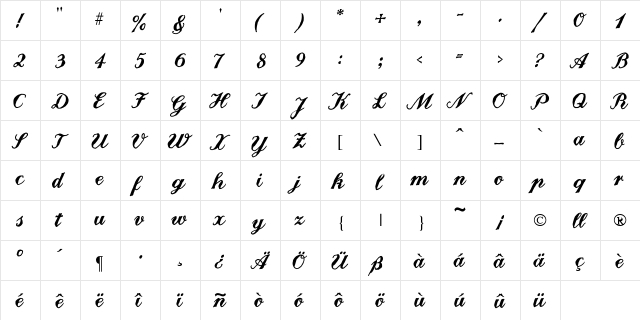
Landliebe Regular
Design Context for Landliebe Typeface
Landliebe is a composed and adaptable typeface that performs quietly and consistently across a wide range of design contexts.